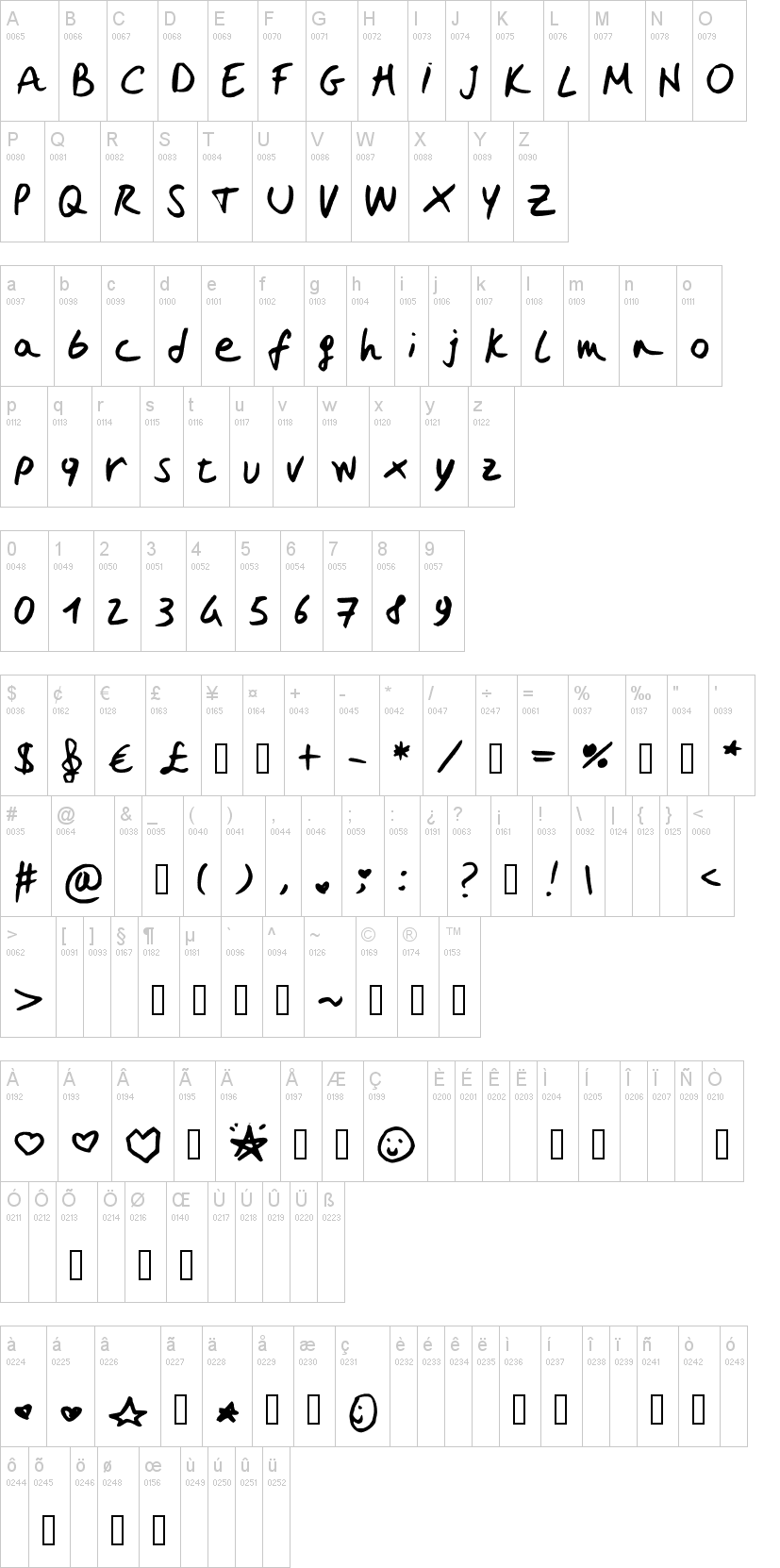
Шрифт Ebrinnas Candy
Lulling soft font designed to creative small great ideas in order to create smashing hipster representations and, why not?, personal image designs.